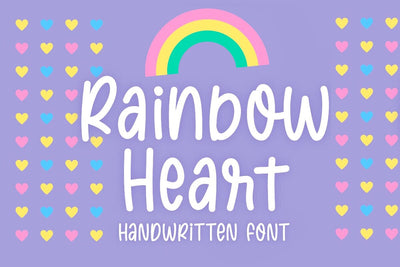
Rainbow Heart - Quirky Handwritten Font
Rainbow Heart is a cute and quirky handwritten font. You can use this font in various projects - blog posts, logos, branding, digital planner, digital notes, invitations, greeting cards, planners, digital journal, photo albums, study notes, school notes, college notes, decorations and much more. Its authentic look and feel will add a personal and realistic feel to your designs.